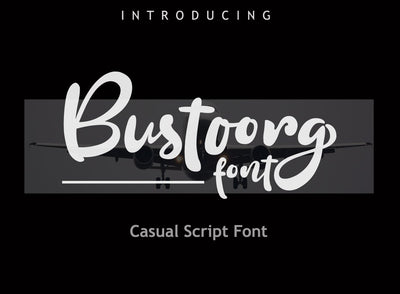
Bustoorg Font
Bustoorg is a casual display script font with bold and artistic shape characters.
Bustoorg is great for your both vintage and modern themed designs.
You can use it as a logo, quote, badge, insignia, packaging, headline, poster, t-shirt/apparel, greeting card, and wedding invitation, etc.
- Uppercase A-Z
- Lowercase a-z
- Numbers 0-9
- Accents
- Punctuation
- Custom ligatures
- PUA Encoded
- Multilingual support